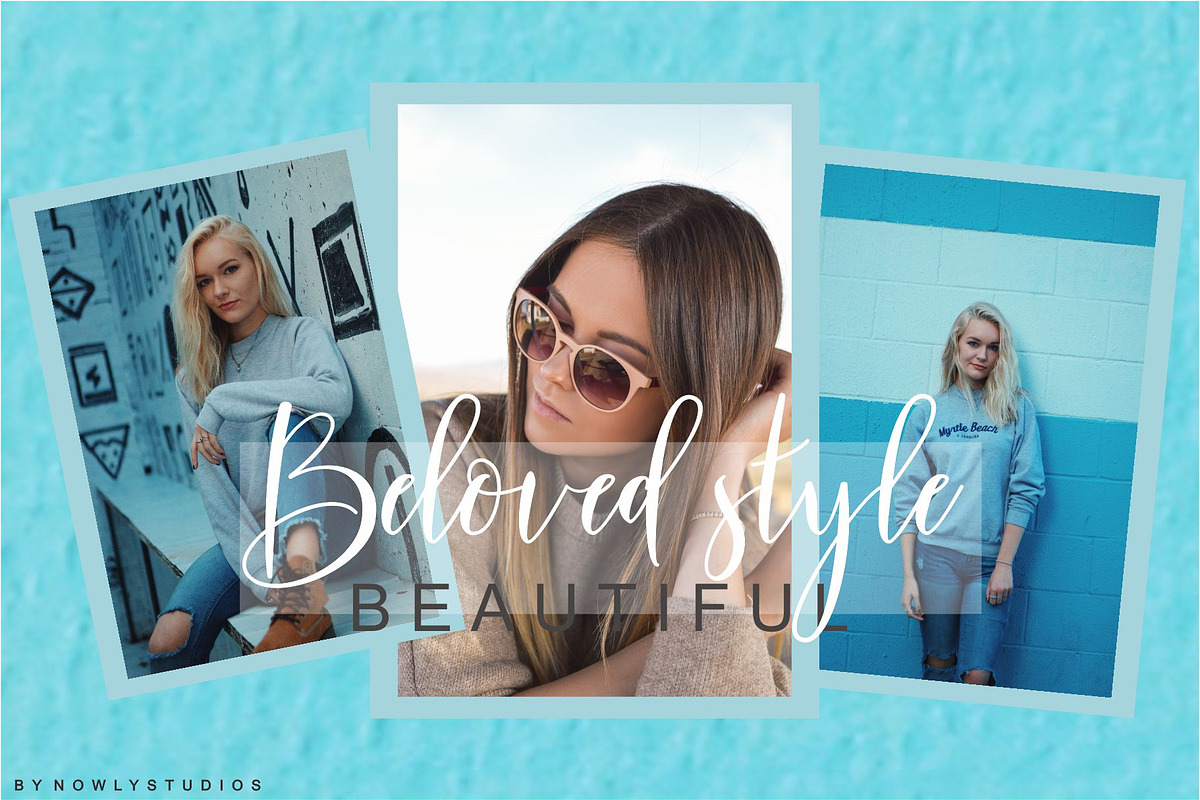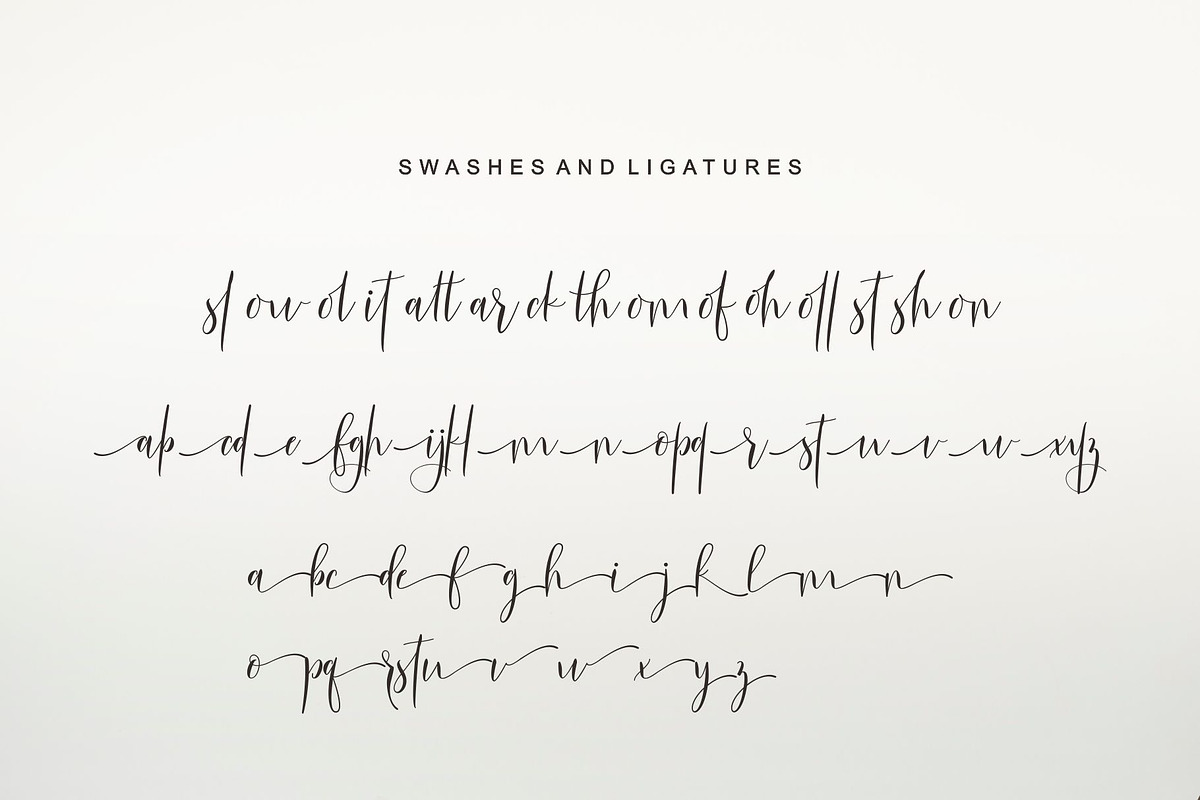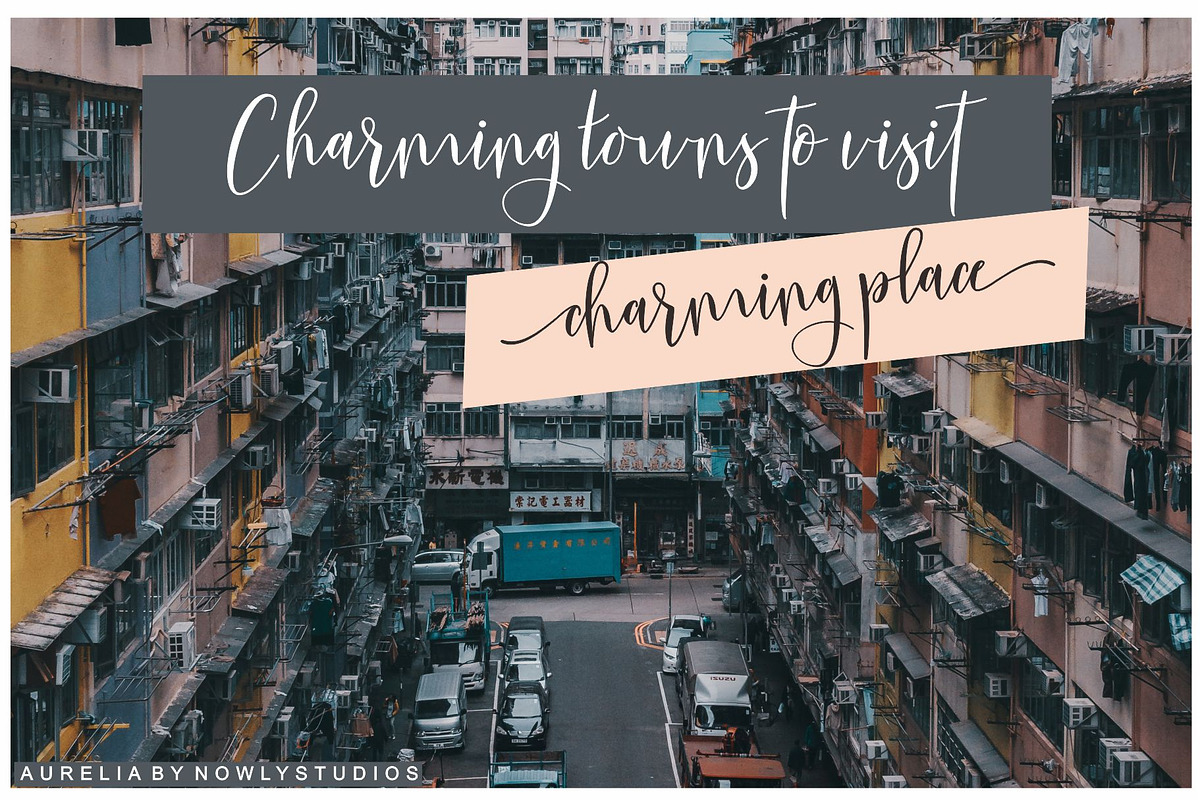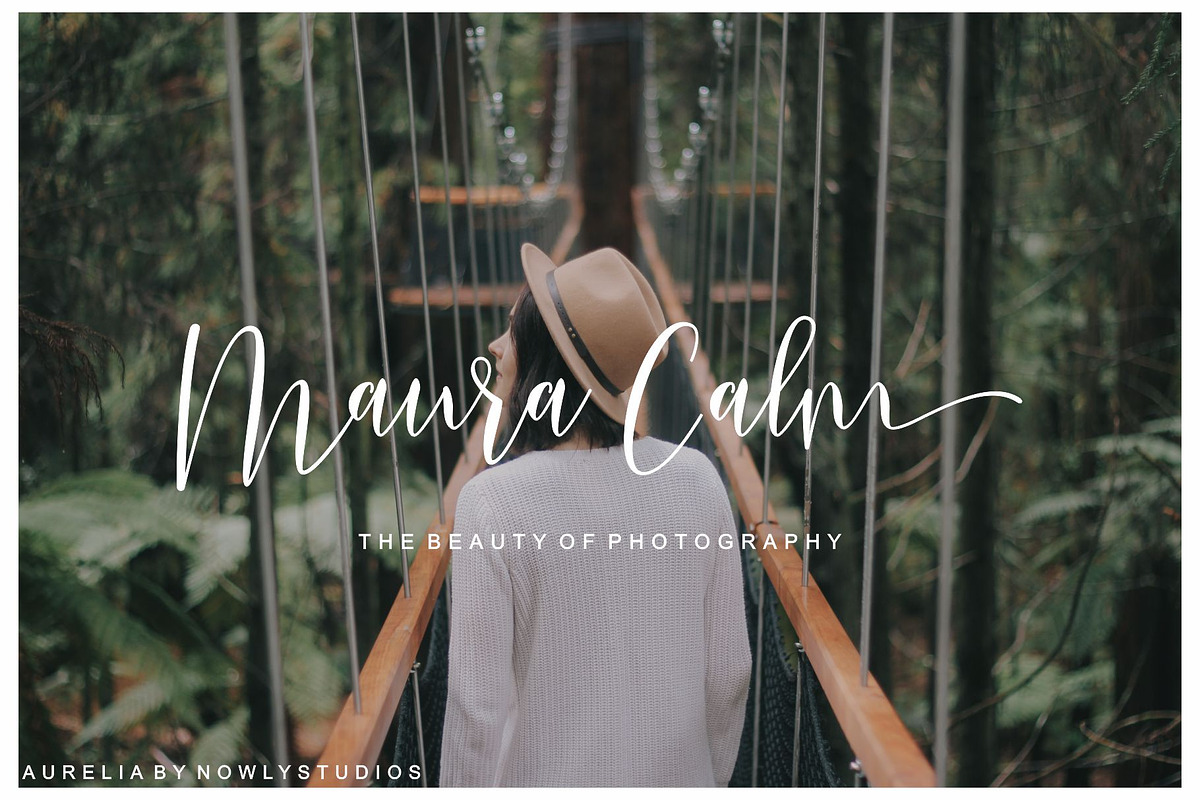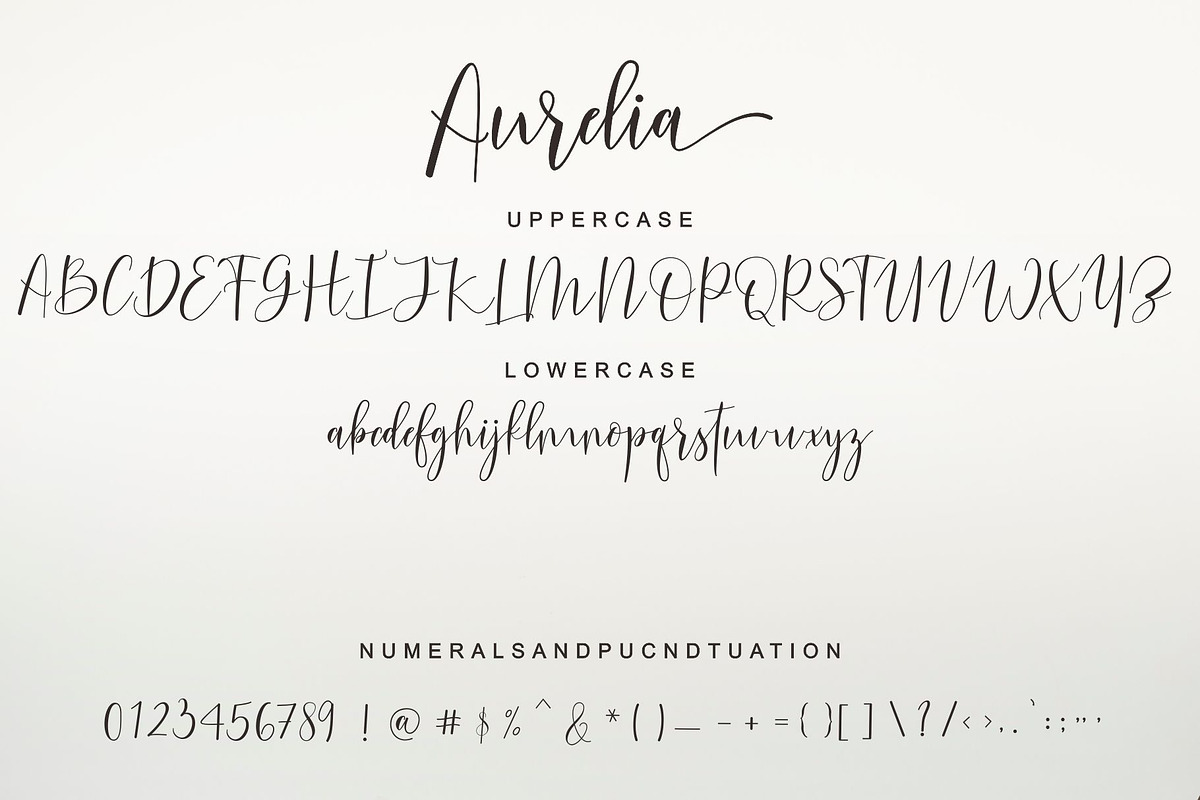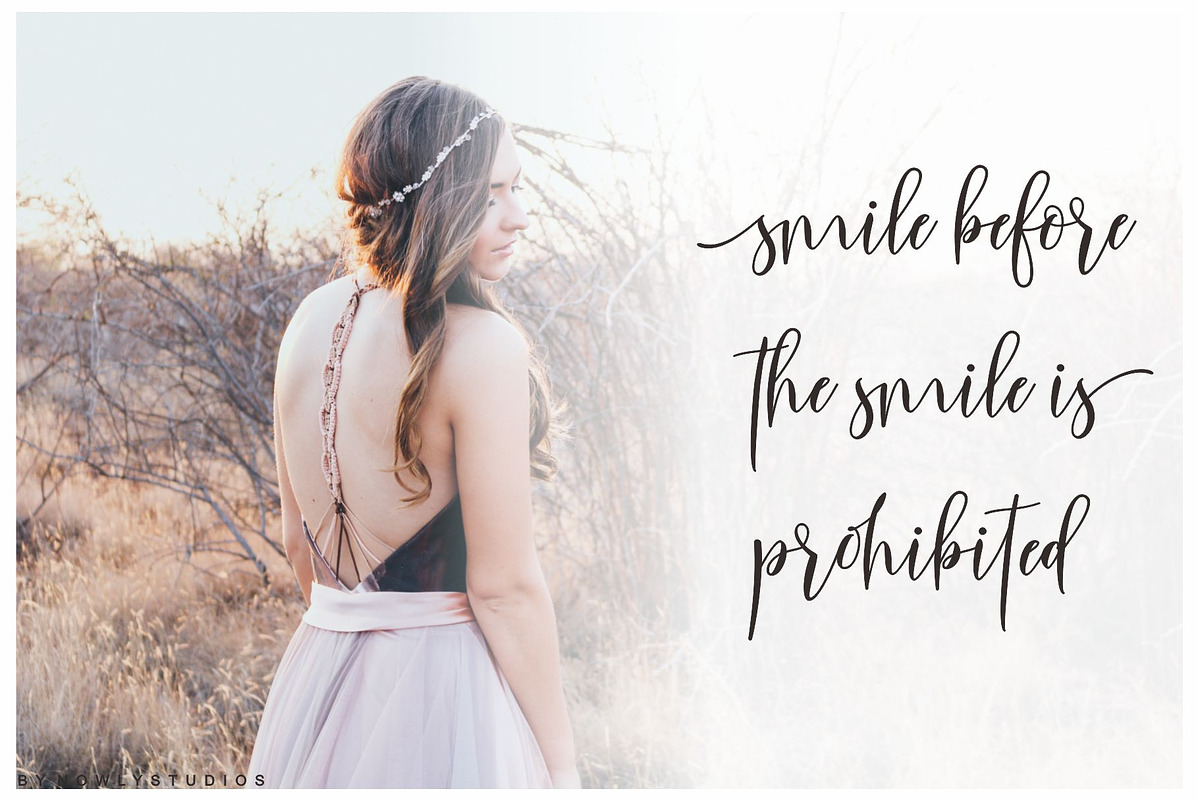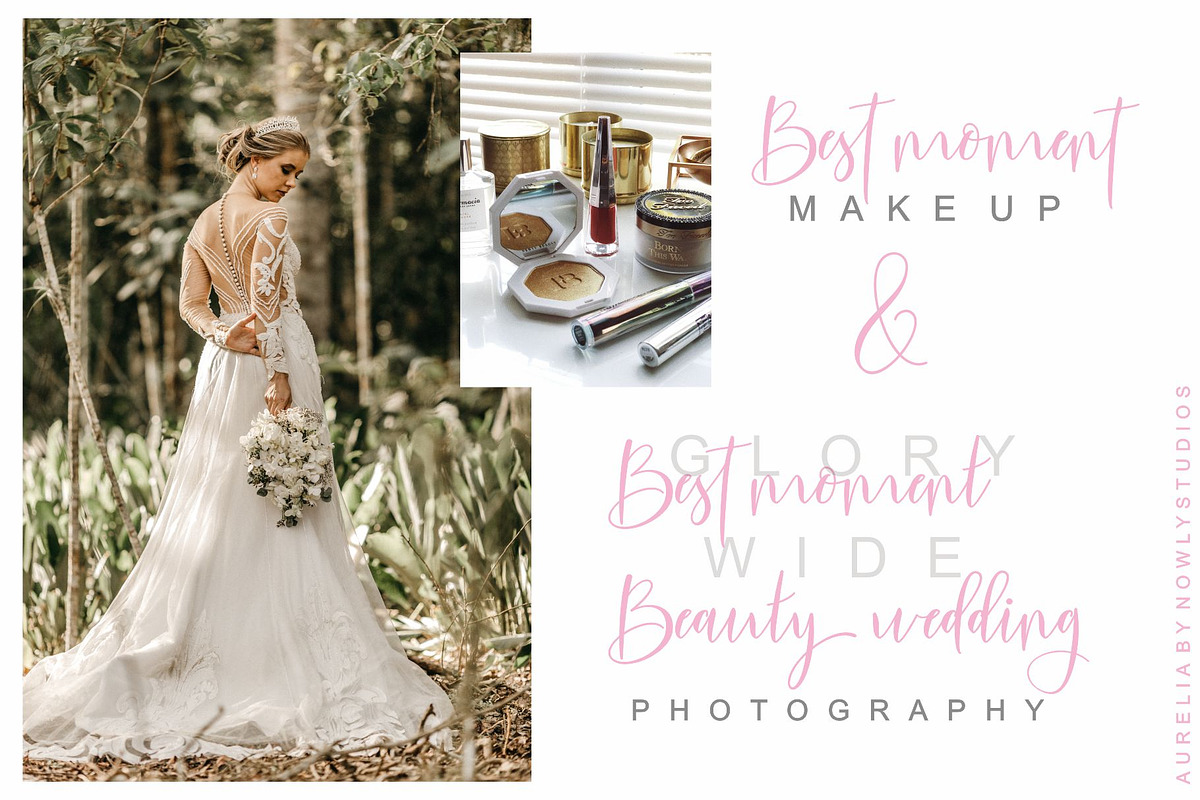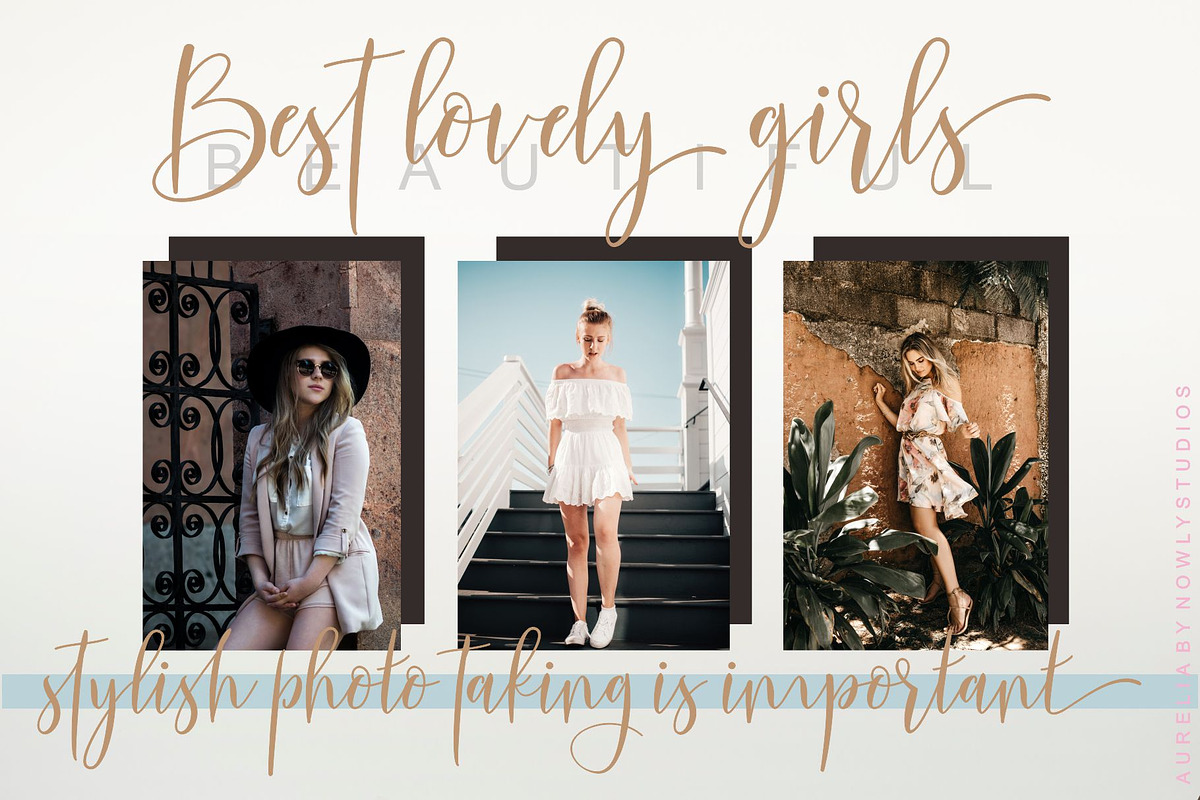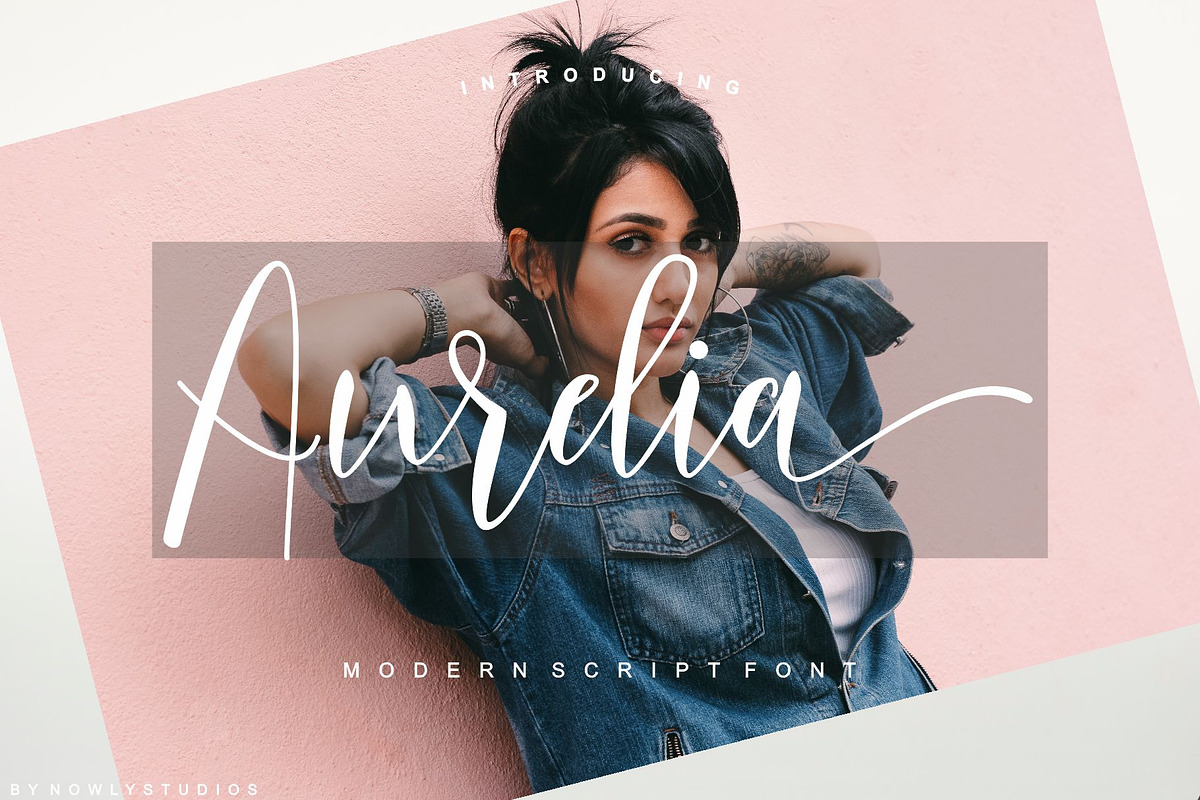
Aurelia Script
Aurelia is a script font. Aurelia is equipped with plenty of OpenType features: To activate the alternates click on Swash, and Stylistic Alternates in any OpenType savvy program or manually select the characters from Glyph Palette.
The swashes are called alternative glyphs. For example, letter "z" with beginning and ending swashes are alternative glyphs for "z". To access the all alternatives you want, just open Glyphs panel. Please use alternative glyph for selected letter, after which don't put spacing. Alternatives Glyphs can be auto matching on Adobe CC.